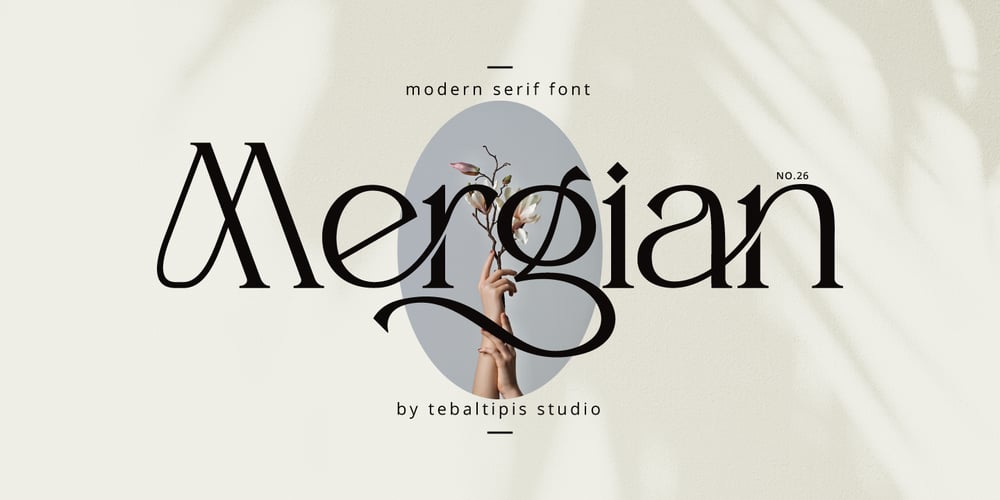
Mergian Regular Font Family was designed by Dzulka Elfira and published by Tebaltipis Studio. Mergian Regular contains 2 styles and family package options. Mergian – Modern Ligature Font by Tebaltipisstudiointroducing our new “Mergian” Modern Ligature with Elegant Style this is perfect for branding, logos, invitation, masterheads and more.Mergian Features :-Multilanguange-Alternates-PUA Encoded-LigaturesFiles Includes :-Mergian Regular.otf-Mergian Regular.ttf-Mergian Slant.otf-Mergian SlantttfIf you have any questions, before or after purchase, please feel free to get in touch.Thank you